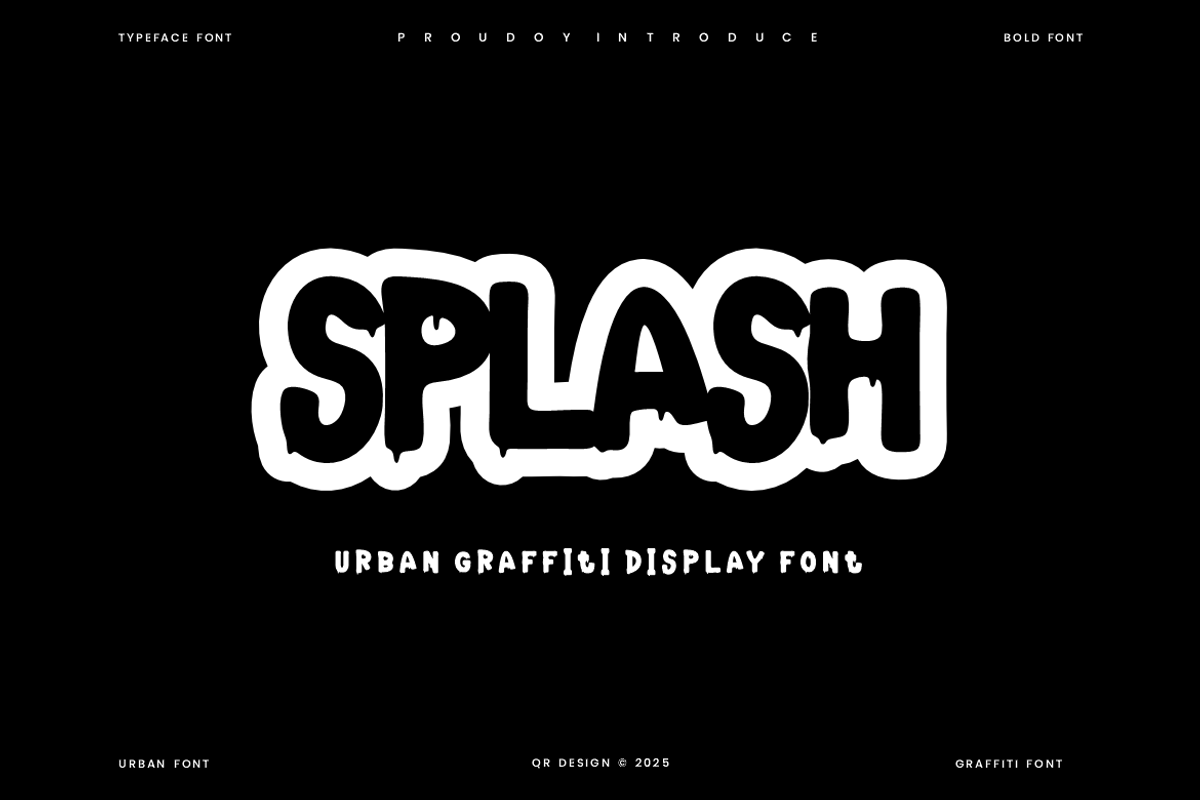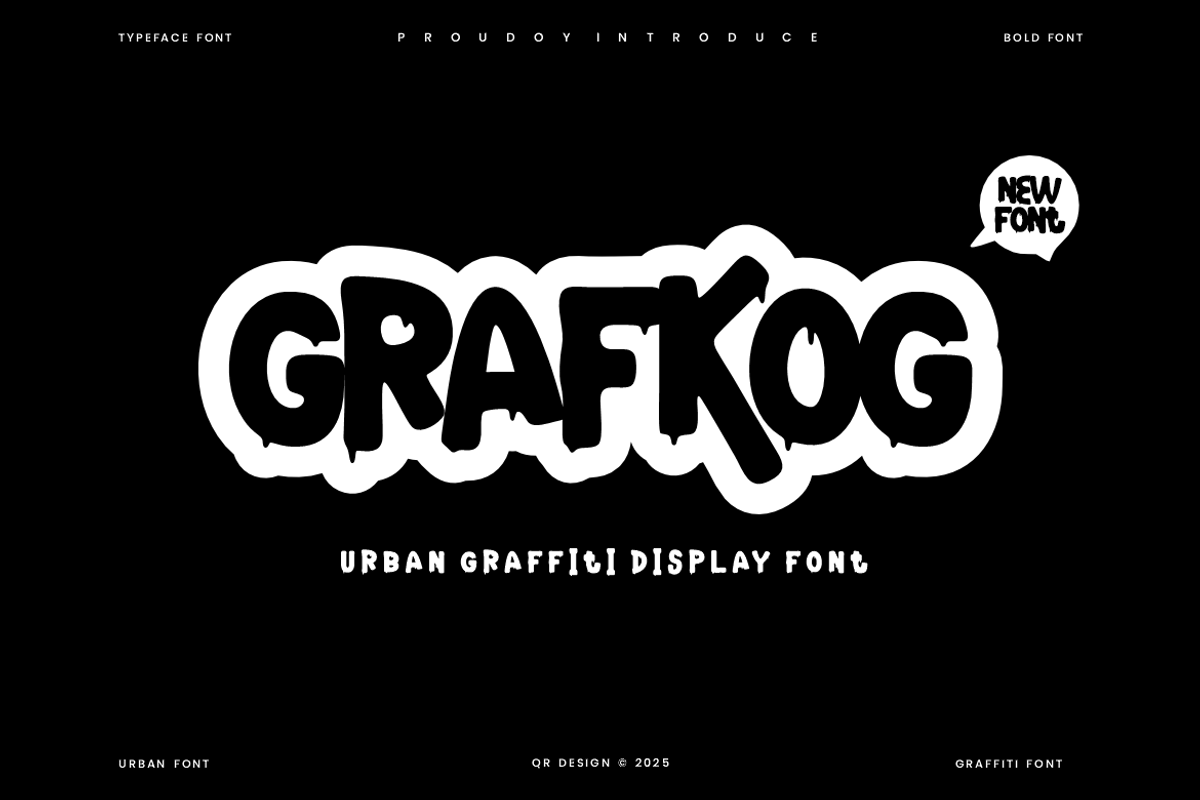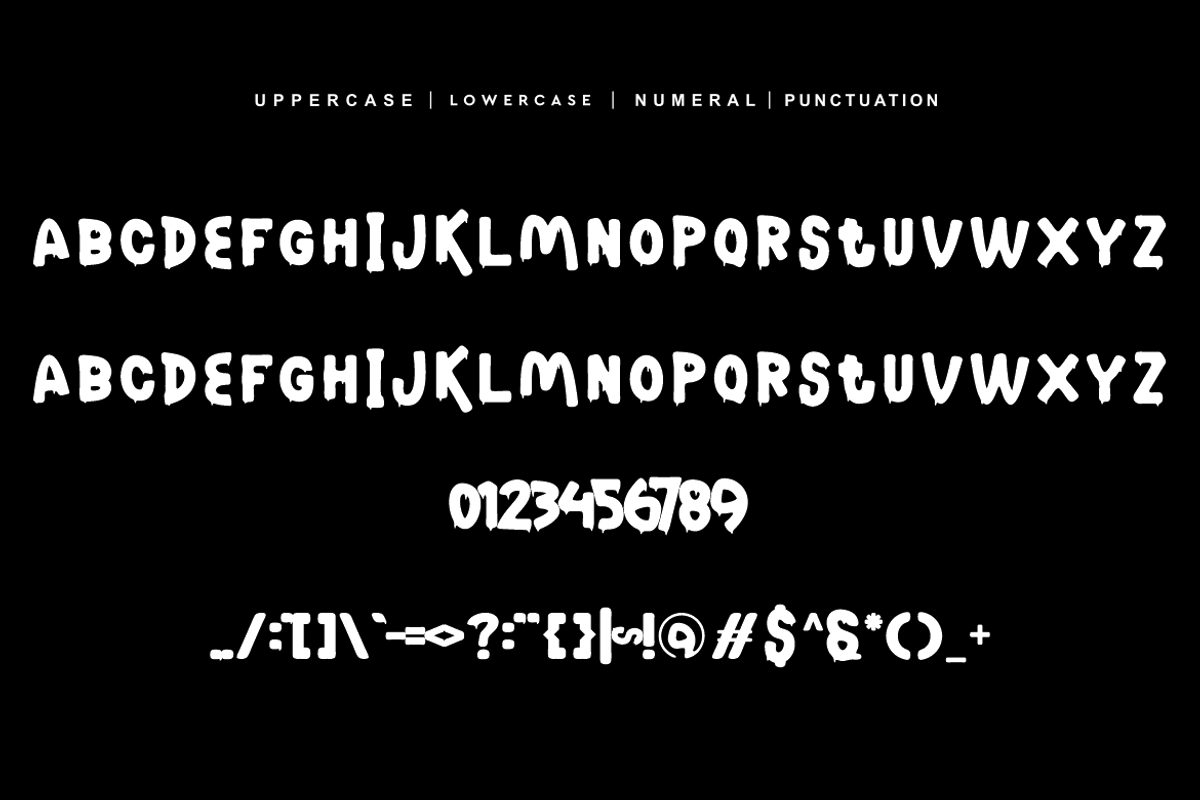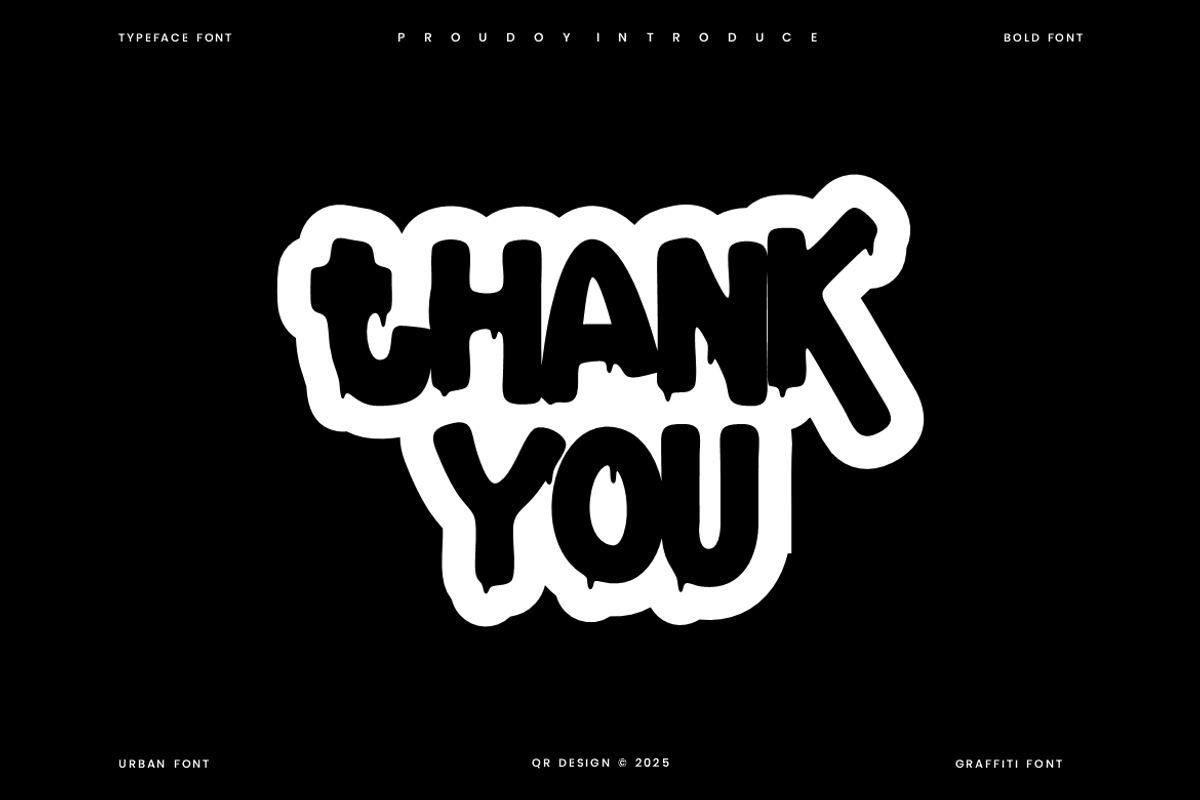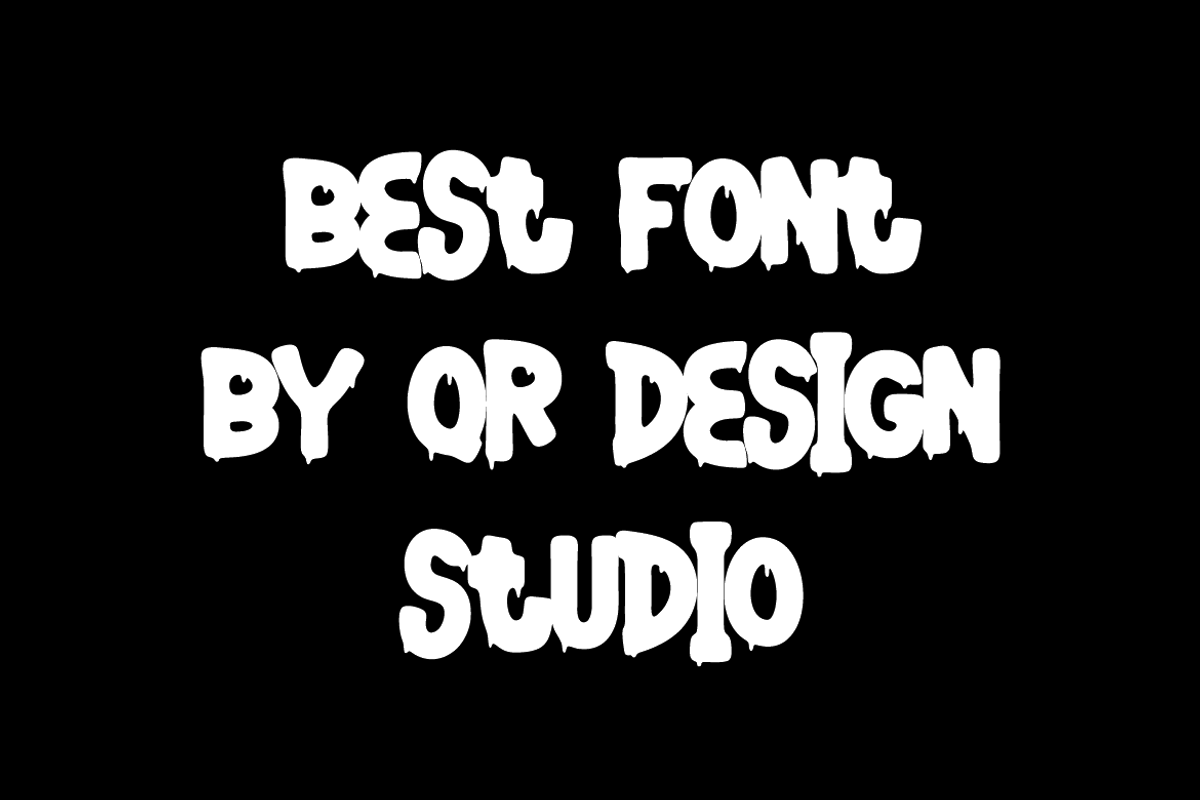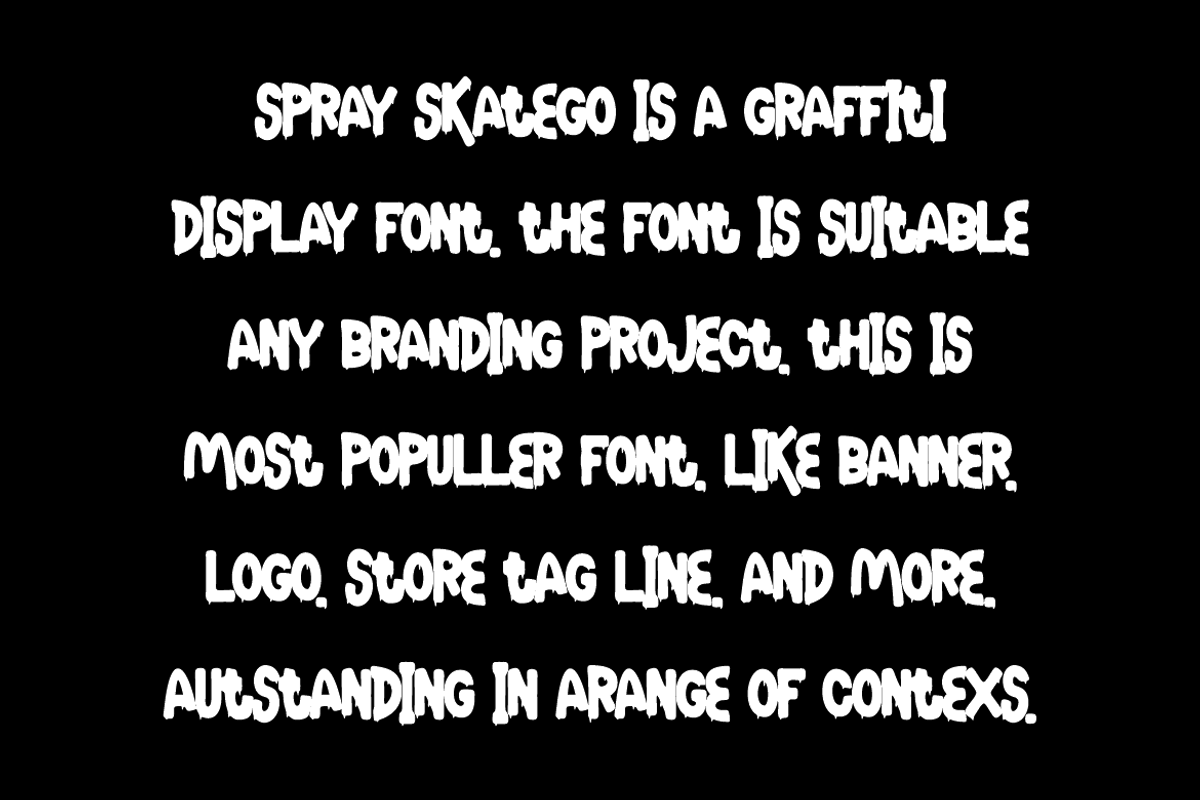
Grafkog - Splash & Urban Skate Font
Grafkog - Splash & Urban Skate Font is a bold and authentic display font. The font is suitable for any branding project like poster, logo, sport, and many more. Outstanding in a wide range of contexts.